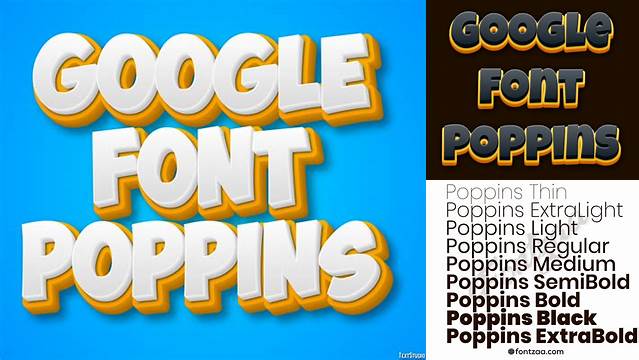
Hey guys! Ever wondered how to make your website or design project pop with the perfect font? One font that's been making waves in the design world is Poppins. This versatile sans-serif typeface is clean, modern, and super readable, making it a fantastic choice for a wide range of applications. In this comprehensive guide, we're going to dive deep into how to import Google Fonts, specifically focusing on the Poppins font. Whether you're a seasoned developer or just starting out, this article will equip you with the knowledge to seamlessly integrate Poppins into your projects. We’ll cover everything from the basics of Google Fonts to the nitty-gritty details of importing and using Poppins in various environments. So, let's get started and transform your typography game!
Why Choose Poppins?
Now, let's talk about Poppins specifically. Why is it such a popular choice? Well, Poppins is a geometric sans-serif typeface that exudes modernity and clarity. Its clean lines and balanced letterforms make it incredibly readable, both in headings and body text. This versatility is one of its biggest strengths. You can use Poppins for just about anything – from website headers and navigation menus to blog posts and marketing materials. Another reason Poppins is so beloved is its wide range of weights. It comes in several styles, from Thin (100) to Black (900), giving you plenty of flexibility to create visual hierarchy and emphasis in your designs. Need a light and airy feel? Go for the Thin or ExtraLight weights. Want something bold and impactful? The Black or ExtraBold weights will do the trick. This variety allows you to maintain a consistent look and feel while still adding visual interest. Poppins also pairs well with a variety of other fonts. Its neutral and clean design means it can complement both serif and sans-serif typefaces, making it easy to integrate into existing design systems. For example, you might pair Poppins with a classic serif font like Merriweather for a sophisticated and balanced look, or with another sans-serif font like Montserrat for a modern and cohesive feel. Beyond its aesthetic qualities, Poppins is also a practical choice. As a Google Font, it's optimized for web use, ensuring fast loading times and consistent rendering across different browsers and devices. This is crucial for maintaining a positive user experience. In short, Poppins is a fantastic font because it's versatile, readable, and visually appealing. Whether you're designing a website, creating a presentation, or working on a branding project, Poppins is a reliable choice that will help you achieve a polished and professional look. Its geometric structure and wide range of weights make it a standout option in the world of typography, and its popularity is well-deserved.
Using the Google Fonts API gives you more flexibility in specifying exactly which font weights you need, which can help optimize your website’s performance. By only loading the weights you use, you can reduce the file size and improve loading times. This method is particularly useful for larger projects where performance is a key consideration. Additionally, the display=swap parameter ensures a smoother user experience by preventing text from disappearing while the font is loading. This is a best practice for web typography and can significantly improve the perceived speed of your website. The Google Fonts API is a powerful tool for fine-tuning your font loading strategy and ensuring your website looks great while performing optimally.
3. Importing via CSS
Another way to import Poppins is directly within your CSS file using the @import rule. This method is straightforward and can be convenient if you prefer to keep all your styling information in one place. However, it’s worth noting that using @import can sometimes lead to performance issues, as the browser may not discover the font files until it has downloaded the CSS file. Despite this potential drawback, it’s still a viable option, especially for smaller projects or when you want to quickly add a font without modifying your HTML. To use the @import method, you’ll first need to construct the correct URL from the Google Fonts API. As we discussed earlier, the basic structure of a Google Fonts API URL looks like this:
Once you have your URL, you can add the @import rule to the top of your CSS file. The syntax for the @import rule is as follows:
Alright guys, we've covered a lot in this guide! From understanding what Google Fonts are and why Poppins is such a fantastic choice, to the various methods of importing it and the best practices for optimal performance. We even dove into troubleshooting common issues you might encounter. By now, you should feel confident in your ability to seamlessly integrate Poppins into your web projects. Remember, typography is a crucial element of design, and choosing the right font can make a huge difference in the overall look and feel of your website. Poppins, with its clean and modern aesthetic, is a versatile option that can elevate your designs. Just keep in mind the best practices we discussed: only load the styles you need, use font-display: swap, and consider self-hosting for more control. And if you run into any snags, refer back to our troubleshooting section. With these tools in your arsenal, you're well-equipped to create stunning and effective typography for your projects. So go ahead, experiment with Poppins, and let your creativity shine! Happy designing!